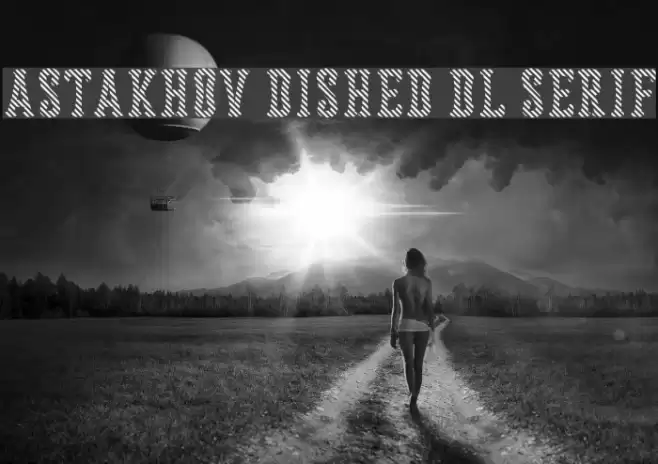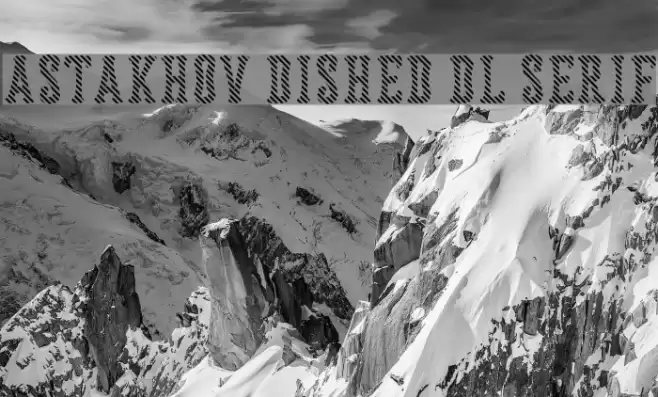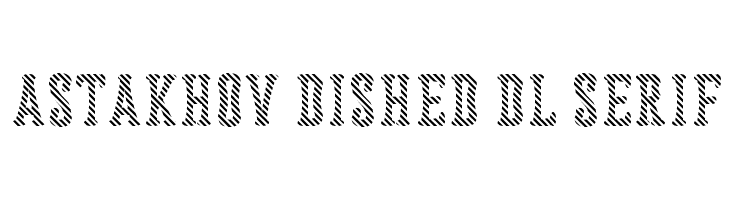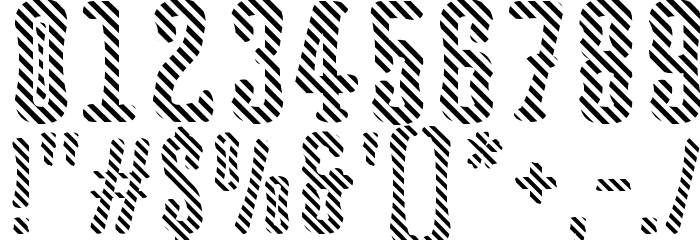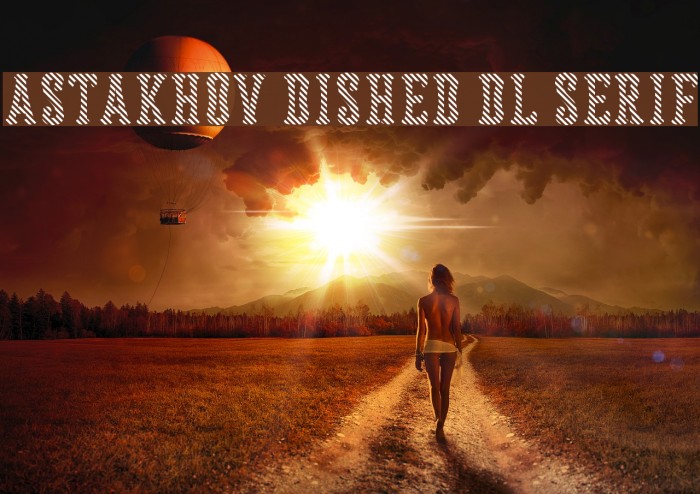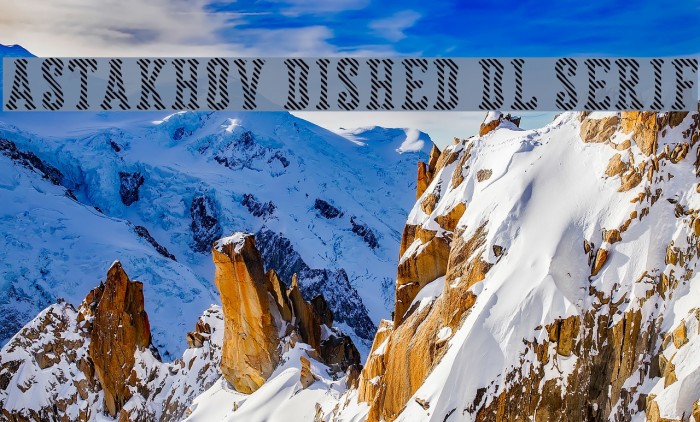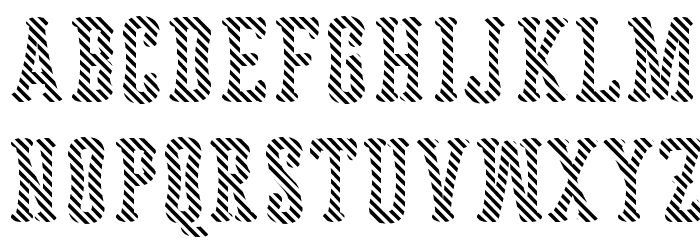
Astakhov Dished DL Serif Font
Astakhov Dished DL Serif Description
This font features a bold and striking design with a unique striped pattern running diagonally through each character. The uppercase letters are prominent and display a strong presence, making them ideal for attention-grabbing headlines. The lowercase letters maintain the same boldness, ensuring consistency across different text sizes. Numbers and special characters are equally bold, with the striped pattern adding a decorative touch that enhances the overall aesthetic. The font's distinct style is both modern and decorative, making it suitable for creative projects that require a standout typeface.
A bold, striped decorative font ideal for eye-catching designs from Uncategorized fonts.
- Overall Style: Modern, Decorative